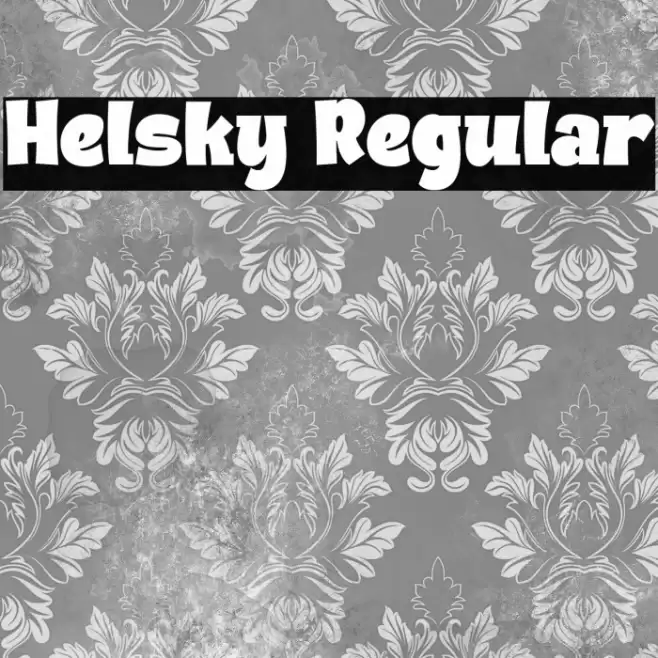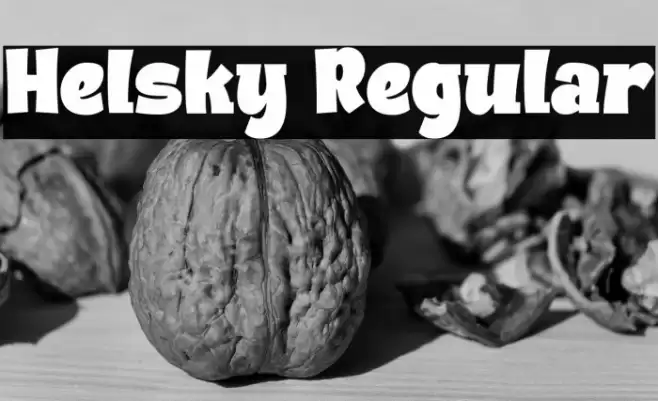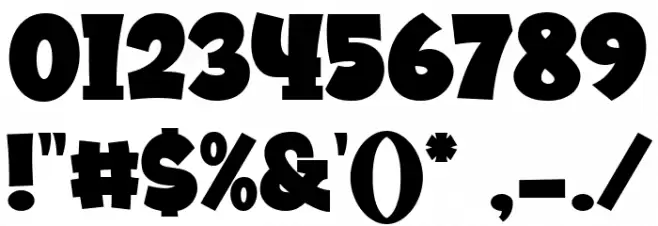
Helsky Regular Font
Helsky Regular Description
This font features a bold and playful design with exaggerated curves and thick strokes, making it highly suitable for attention-grabbing headlines and creative projects. The characters are wide and have a whimsical, cartoon-like appearance, which adds a sense of fun and energy. The uppercase and lowercase letters maintain a consistent style, with rounded edges and a slightly irregular form that enhances its informal and friendly look. The numerals and special characters follow the same bold and dynamic style, ensuring uniformity across all text elements.
A bold, playful font with exaggerated curves and thick strokes from Cartoon fonts.
- Proposed Projects: Ideal for children's books, comic strips, playful branding, and event posters.
- Width: Expanded
- Overall Style: Playful, Fun, Cartoon-like